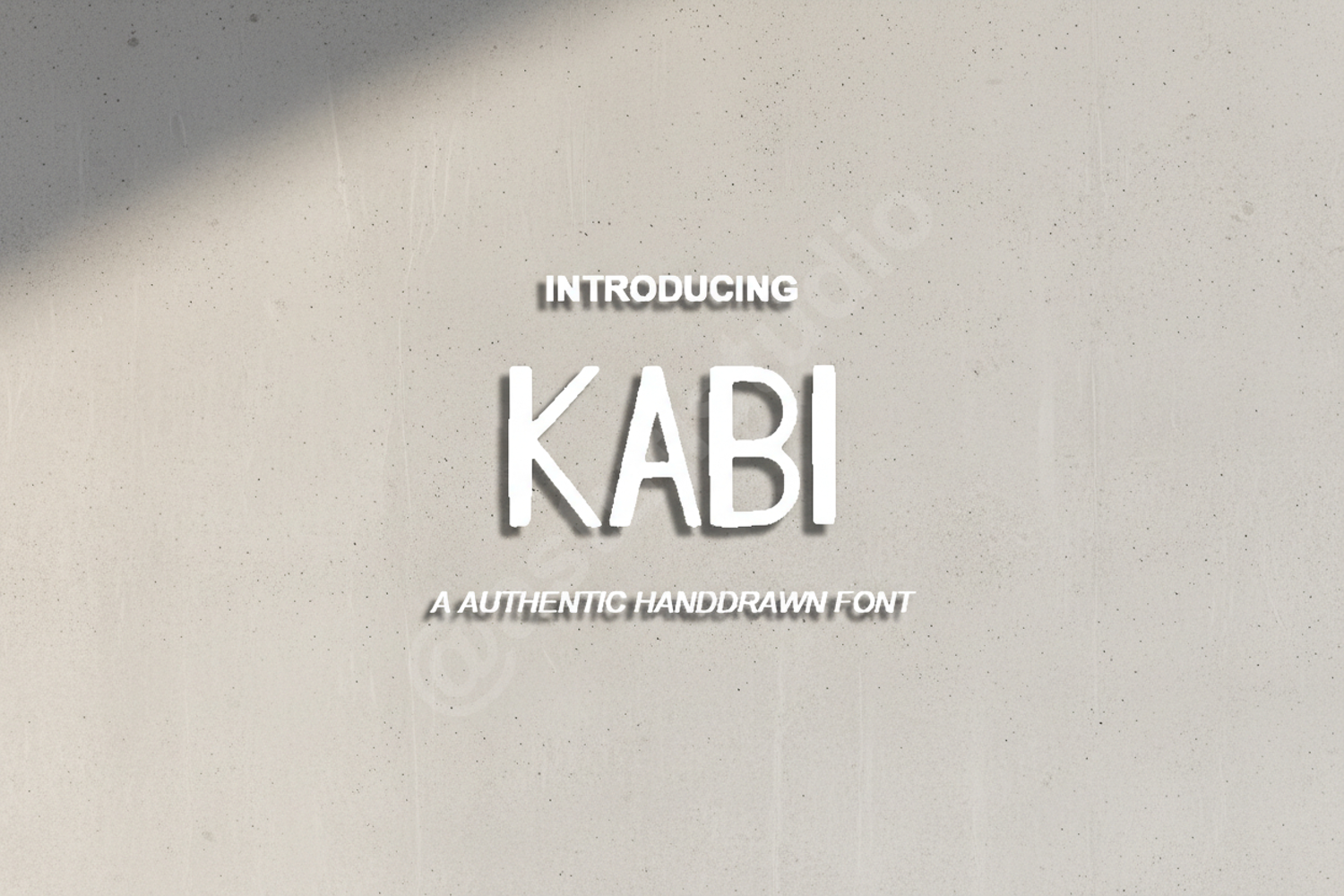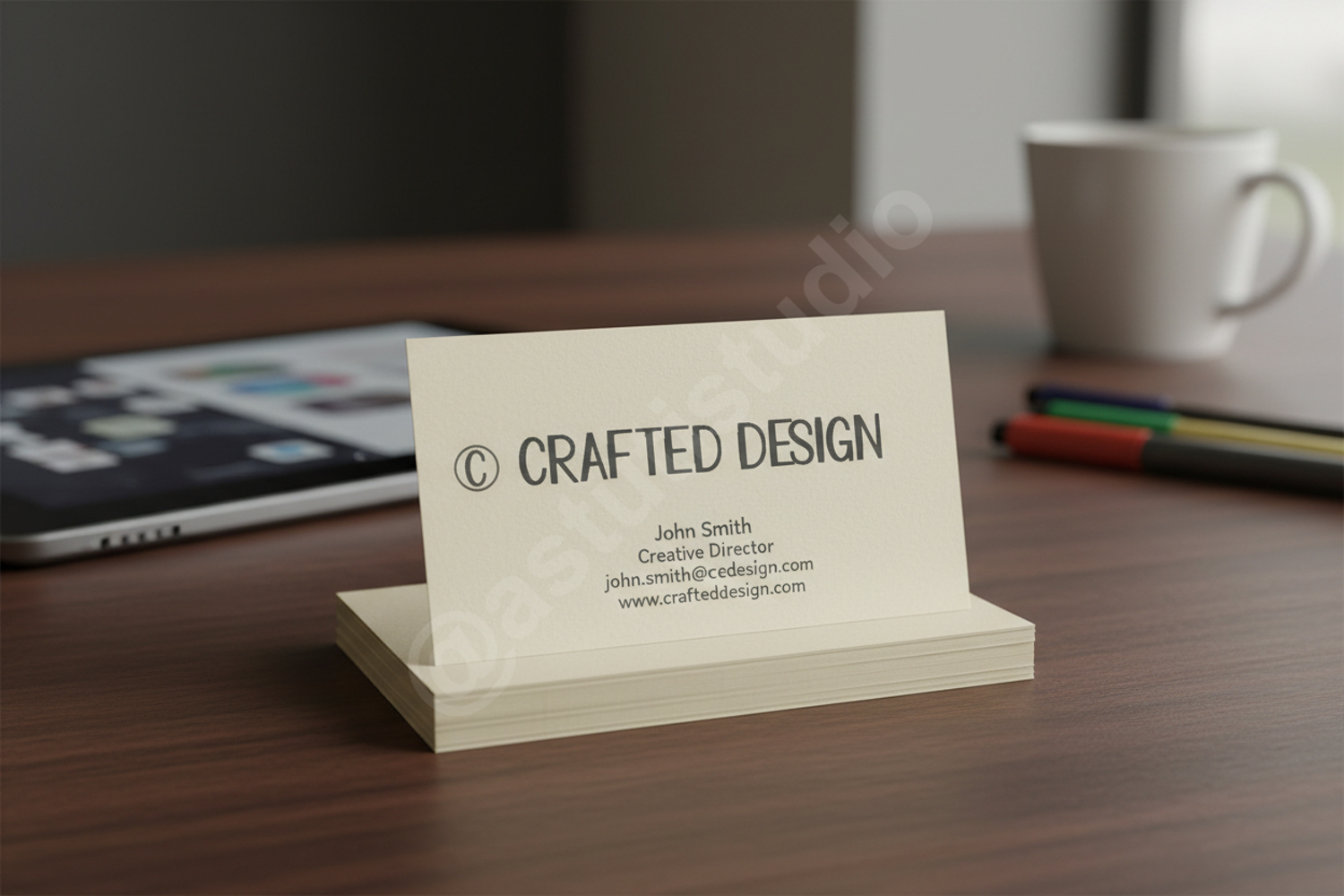
Kabi | Modern Minimalist Sans Serif Typeface
Kabi
Experience the perfect blend of simplicity and sophistication with Kabi. This premium sans serif typeface is meticulously crafted to bring a modern, clean aesthetic to any creative project. With its balanced proportions and minimalist lines, Kabi offers a timeless appeal that ensures your designs stand out with professional elegance.
- Standard and Multilingual Characters
- Numerals and Punctuation
- Premium Branding and Visual Identity
- Sophisticated Logo Design
- Editorial Layouts and Magazine Spreads
- High-end Packaging and Labels
- Clean Social Media Graphics
- Minimalist Website Headers